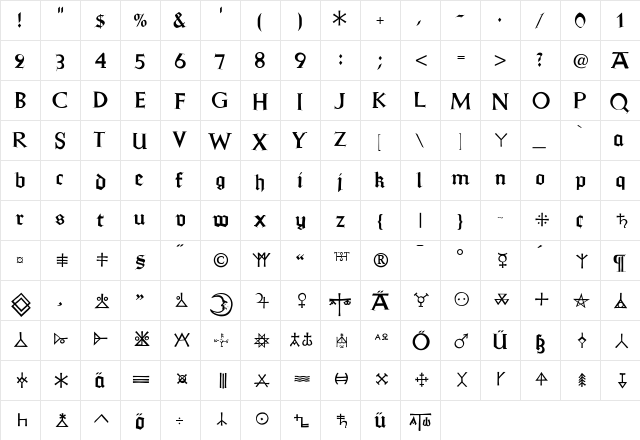
JessicaSerif Regular Font Preview
JessicaSerif Regular
JessicaSerif Regular Font Details
Design Context for JessicaSerif Typeface
JessicaSerif carries the refined structure of traditional serif typography, with bracketed terminals and considered proportions that communicate credibility and craft.